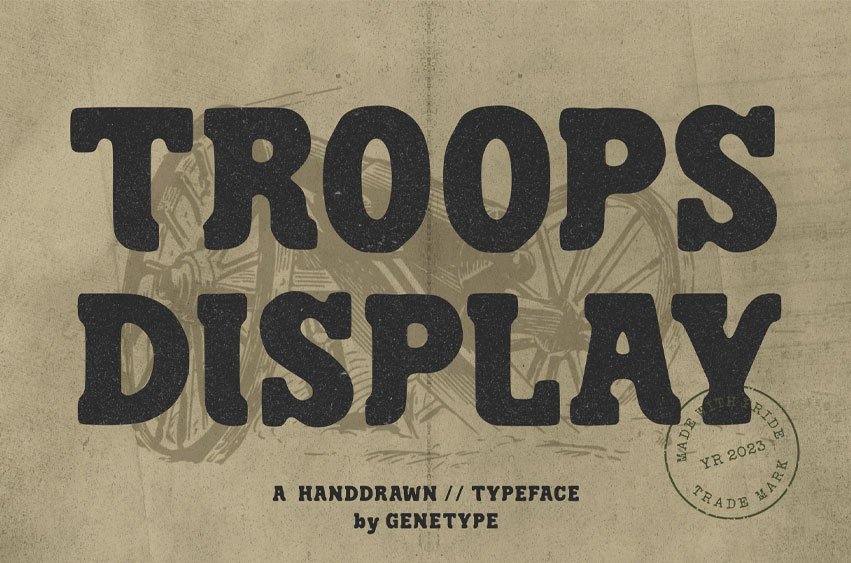
Troops Display Font
Troops Display Font is a bold hand-drawn display typeface that brings the spirit of vintage military design to modern use. Inspired by old field lettering and wartime posters, it carries a rugged, textured look that feels authentic and full of character. Each letter is carefully crafted with an uneven hand-rendered finish, creating a natural, worn texture perfect for nostalgic or gritty design concepts.
This font works beautifully for graphics, badges, packaging, posters, and logos that demand a tough and handcrafted personality. Whether you’re designing for outdoor gear, motorcycle clubs, heritage branding, or retro print layouts, TROOPS Display adds a distinctive handmade touch.